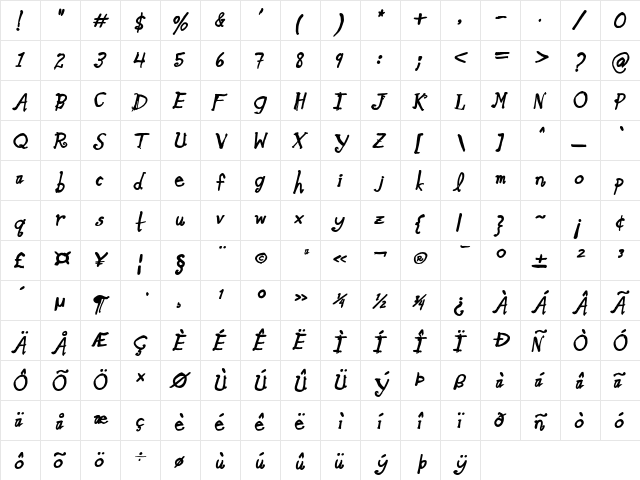
Blue Goblet Alternate One Bold Oblique Font Preview
Design Context for Blue Goblet Alternate One Bold Oblique Typeface
Blue Goblet Alternate One Bold Oblique takes a measured approach to typography — its balanced proportions and neutral character make it a reliable workhorse for both digital and print work. The slanted form adds forward momentum and visual energy. Its bold stroke weight gives it real presence on the page.
Pro Tip: Try Blue Goblet Alternate One Bold Oblique for annotation and caption copy alongside an upright companion — the contrast in angle creates a dynamic but ordered typographic system.